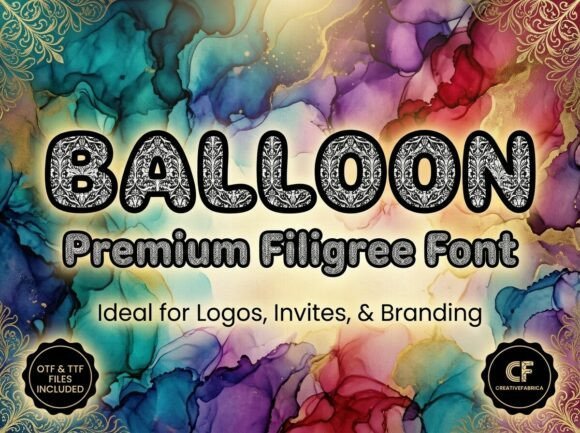
Unleashing Elegance with Balloon Font
Have you ever stared at a beautifully crafted font and felt an instant rush of creativity? It’s as if the intricate details and ornate patterns transport you to a world of haute-couture sophistication. For designers, this moment is a dream come true, and the Balloon Font is the perfect catalyst.
This premium filigree display font is designed to elevate your typography to new heights. With its heavy, rounded “bubble” contours and internal tapestry of symmetrical damask patterns, curling acanthus leaves, and royal scrolls, the Balloon Font is an exceptional match for high-end projects. Whether you’re designing luxury packaging, wedding invitations, or elite event graphics, this font delivers a profound sense of established gemstone grace and unyielding professional luxury.
Key Features of Balloon Font
- Unique Characteristics: Balloon Font features a distinctive, rounded design with a playful, yet elegant feel, making it suitable for various design applications
Review: Balloon Font
As a designer, I was excited to dive into the Balloon Font and see how it would perform in my projects. Overall, I’d say it’s a solid addition to any font library, but it has its limitations.
- Unique and playful aesthetic: Balloon Font is perfect for designs that need a touch of whimsy and fun. Its rounded, balloon-like shapes add a lighthearted feel to any project.
- Highly legible: Despite its unusual shape, Balloon Font is surprisingly easy to read, even at smaller font sizes.
- Limited character set: Unfortunately, Balloon Font has a relatively small character set, which may not be ideal for projects that require a wide range of symbols and glyphs.
- Not ideal for serious or formal designs: While Balloon Font is perfect for playful designs, it may not be the best choice for projects that require a more professional or formal tone.
Overall impression
In conclusion, Balloon Font is a fun and playful addition to any designer’s library. While it has its limitations, it’s perfect for projects that need a touch of whimsy and fun. Just be sure to use it sparingly and in the right context to get the most out of it.
Tips for Getting the Most Out of Balloon Font
Use Balloon Font to add a playful and whimsical touch to your designs. Experiment with different font sizes, colors, and shapes to create unique and eye-catching effects.
Use Balloon Font for birthday invitations, party decorations, and other celebratory designs. It’s also great for creating attention-grabbing headings and titles in marketing materials and presentations